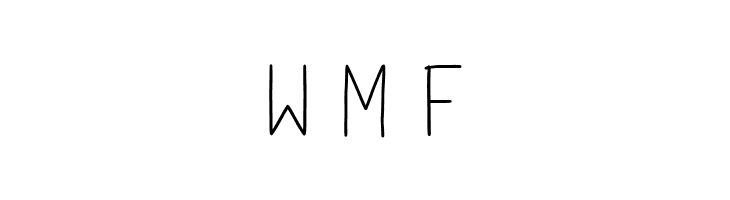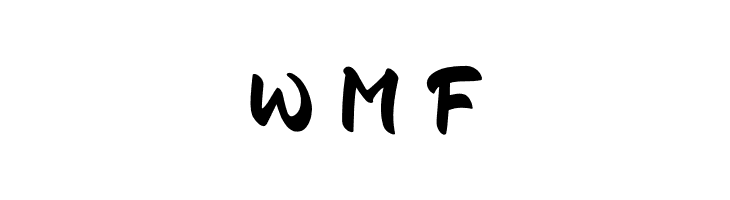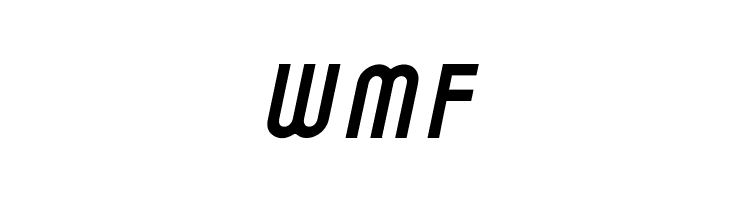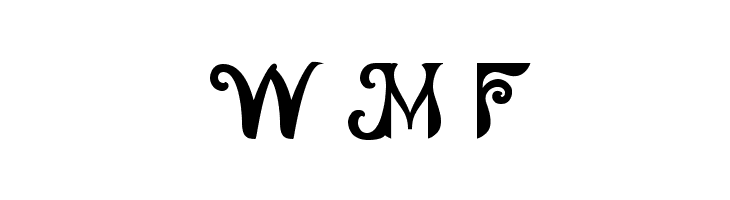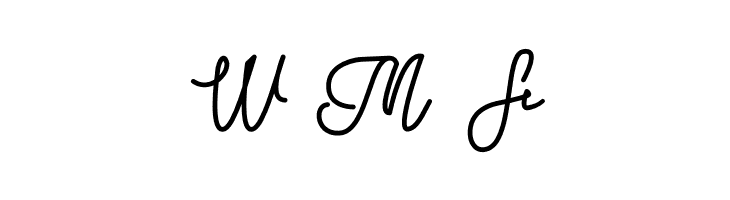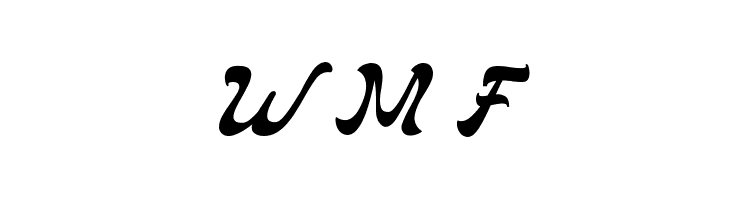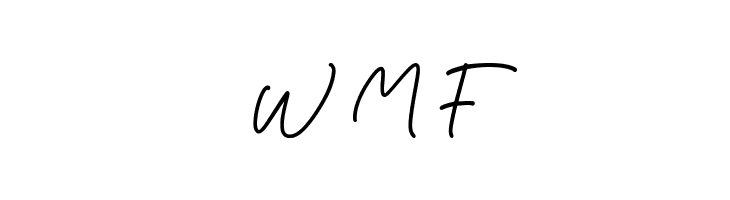
A playful, handwritten font with tall, narrow letters and low contrast strokes.
A bold, expressive handwritten font with dynamic strokes and a modern flair.
A bold, italic sans-serif font with a modern and dynamic style.
A bold, geometric font with a modern and structured design.
An ornate and decorative font with intricate curls and swirls.
A cursive, handwritten-style font with elegant loops and swashes.
A lively and dynamic script font with fluid, connected letterforms.
A bold, elegant script font with flowing, interconnected characters.
A playful, casual handwritten font with smooth, rounded edges and consistent stroke width.
A lively handwritten font with fluid, cursive letterforms and a personal touch.